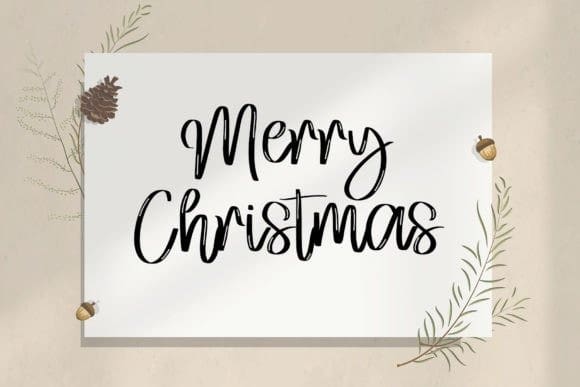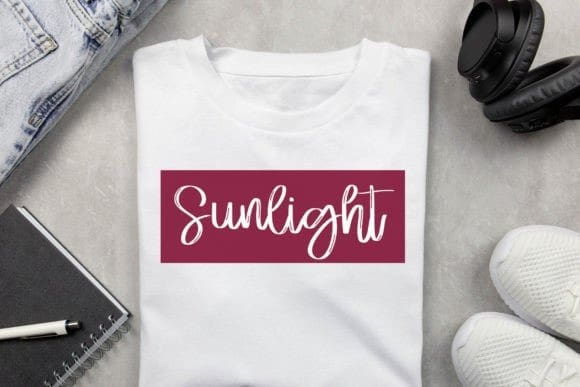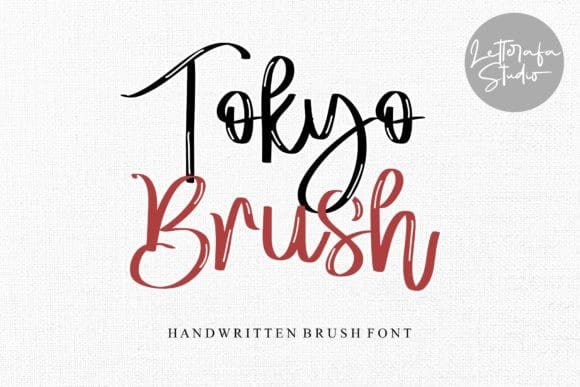
Tokyo Brush Font
Tokyo Brush Font is a fresh and natural handwritten brush font. No matter the topic, this font will be an incredible asset to your fonts’ library, as it has the potential to elevate any creation.